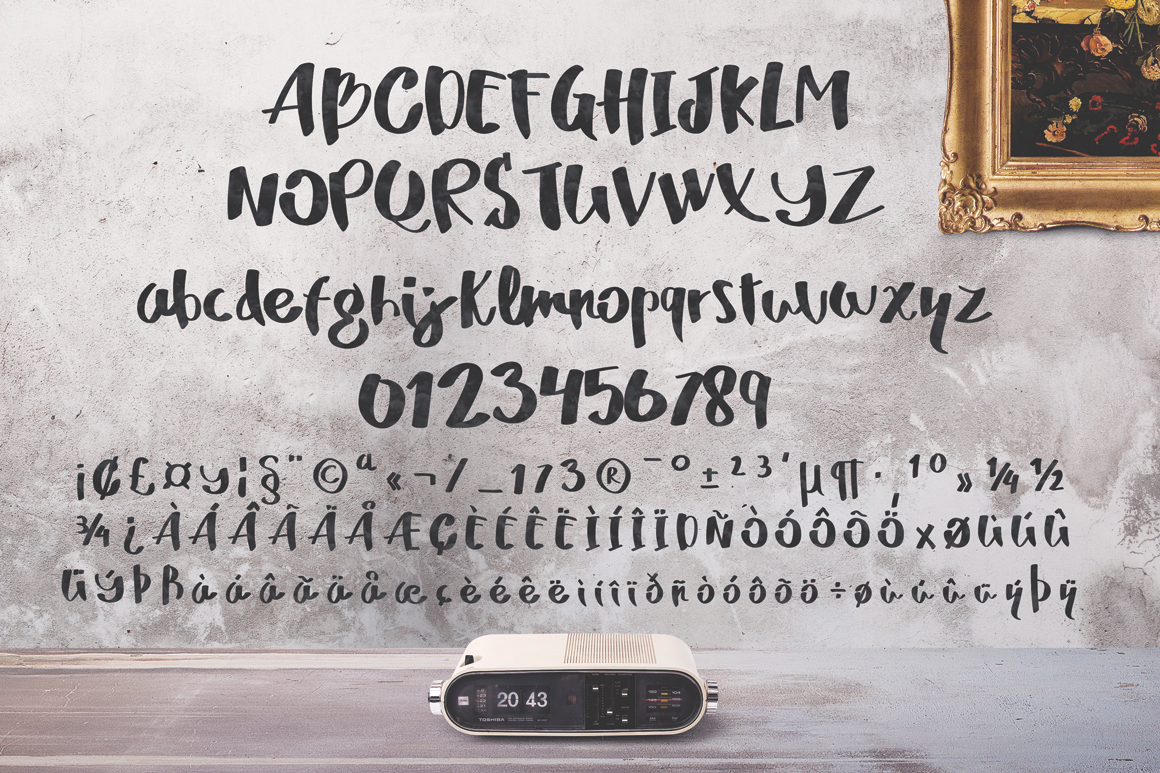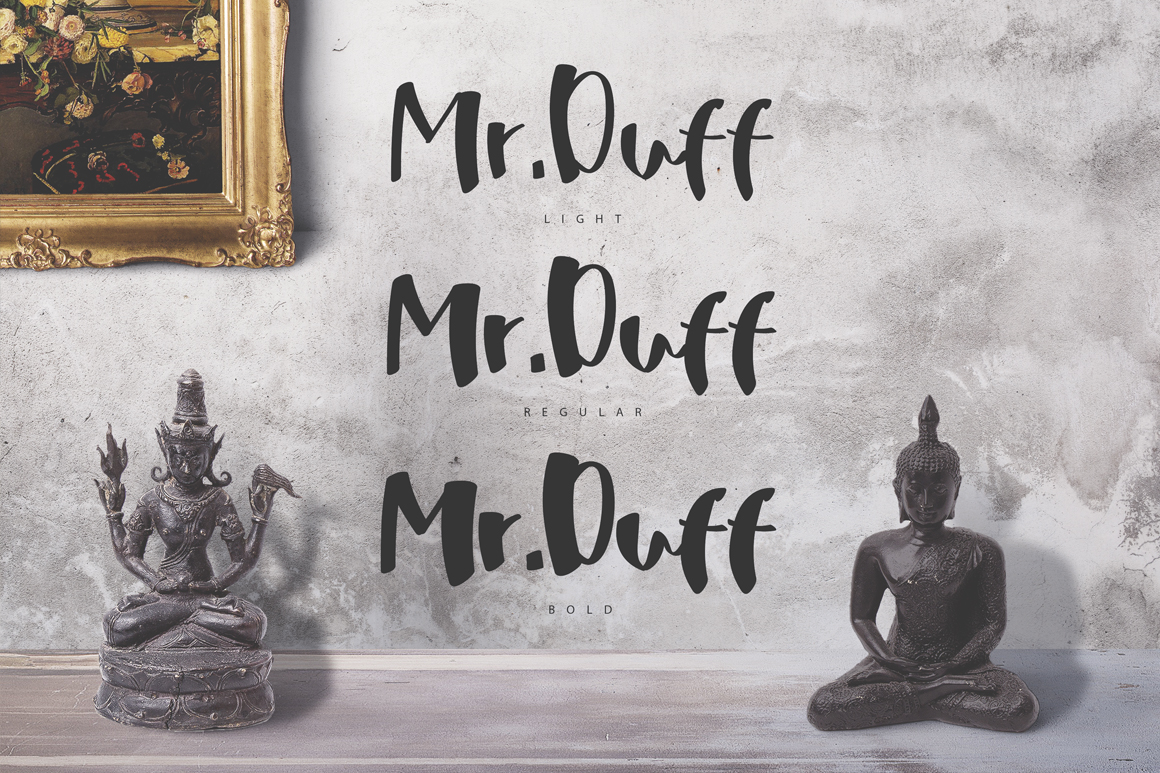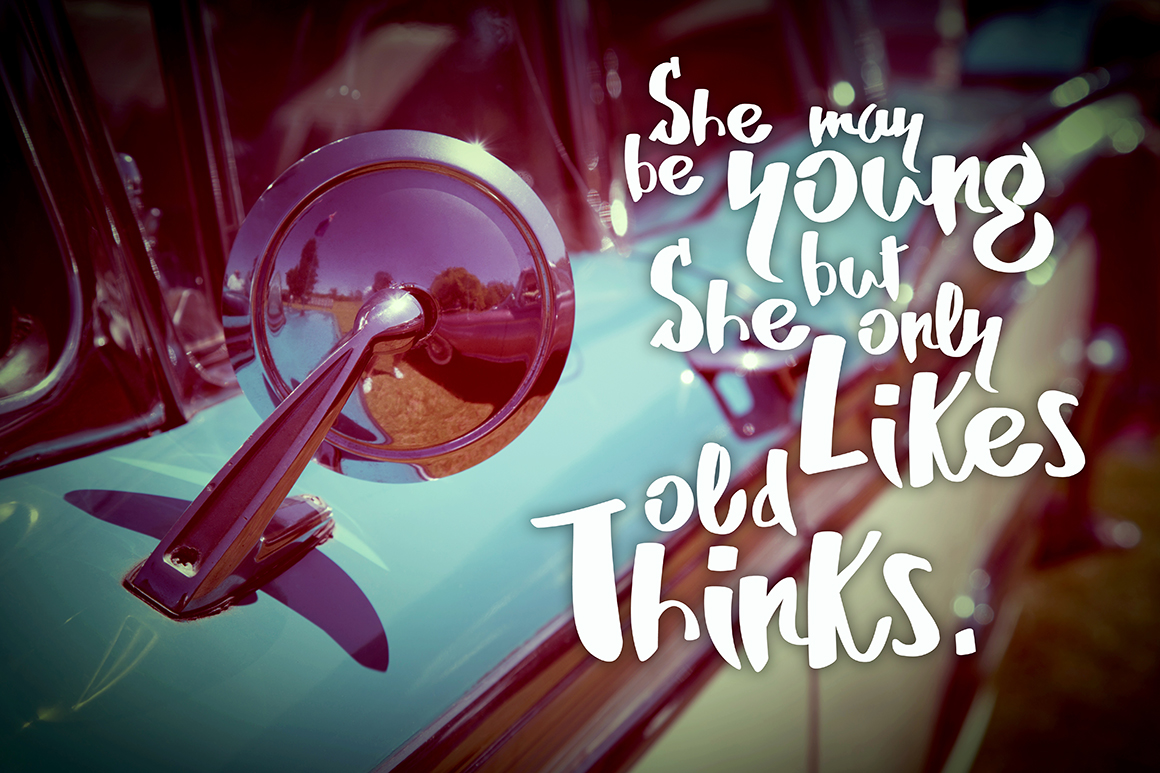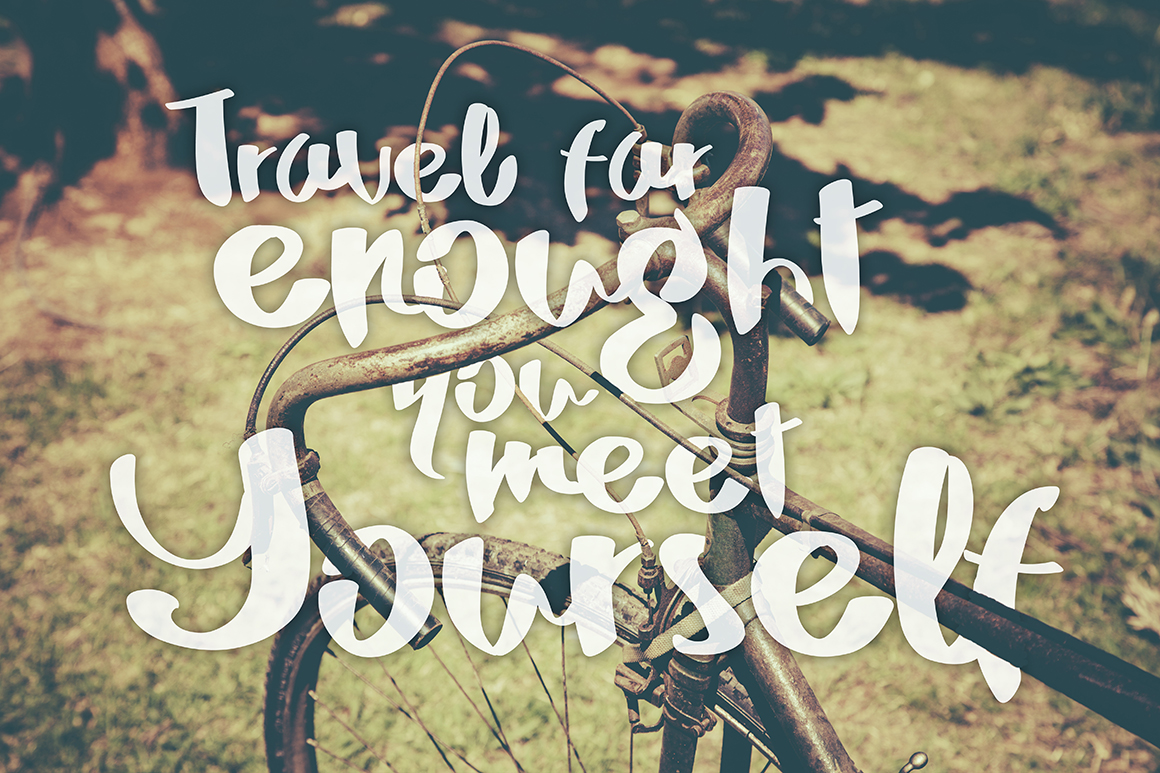
Introduction to Mr. Duff Font
Imagine you’re working on a creative project, and you need the perfect font to make your design pop. You’ve tried countless options, but nothing seems to capture the essence of your vision. That’s where the Mr. Duff Font comes in – a smooth, playful script font that will elevate your design to the next level.
With its digitally created letters that mimic the look and feel of a thick brush stroke, the Mr. Duff Font is the perfect addition to any project. Its smooth lines and slick finish make it a high-quality design resource that will give your work a professional touch. Whether you’re working on a logo, brochure, or website, the Mr. Duff Font is sure to impress. And the best part? It’s available for free download, making it an accessible resource for designers of all levels.
Whether you’re a seasoned pro or just starting out, the Mr. Duff Font is a valuable tool that will help you bring your creative vision to life. With its transparent background and high-quality design, it’s the perfect choice for any project that requires a touch of elegance and sophistication.
Key Features of Mr. Duff Font
• Unique, hand-drawn design perfect for creative projects requiring a personal touch.
• High-quality font with transparent background, allowing for seamless integration into various design elements.
• Features a clear, readable font size of up to 300 points, making it suitable for large-scale designs.
• Perfect for designers looking for a distinctive, high-quality font to elevate their creative project.
Honest Review: Mr. Duff Font
As a designer, I’m always on the lookout for high-quality design resources that can elevate my creative projects. The Mr. Duff Font caught my eye, and I’m excited to share my honest review with you.
What works well: ✨ The Mr. Duff Font is a beautifully designed font that features a unique, vintage aesthetic. The font is highly customizable, with options to adjust the size, color, and style to suit your needs. The transparent background option is a nice touch, allowing you to easily integrate the font into your design without any distractions.
What doesn’t work so well: ⚠️ One potential limitation of the Mr. Duff Font is its limited character set. While it’s perfect for short phrases or titles, it may not be suitable for longer blocks of text. Additionally, the font can be quite large in size, so you may need to adjust the font size to get the best results.
Overall impression: I’m really impressed with the Mr. Duff Font, and I think it’s a great addition to any designer’s toolkit. The free download option is a bonus, making it accessible to designers of all levels. If you’re looking for a high-quality font to add some personality to your creative project, I highly recommend giving the Mr. Duff Font a try.
Pros:
• High-quality design
• Customizable options
• Transparent background
Cons:
• Limited character set
• Font size can be large
Tips for Getting the Most Out of Mr. Duff Font
Experiment with different font sizes and styles to add depth and visual interest to your design. Use the font in combination with other design elements, such as images and graphics, to create a unique visual effect. The font’s transparent background makes it easy to combine with other design elements.
The Mr. Duff Font is ideal for use in creative projects, such as logos, posters, and social media graphics. Its unique design and high-quality features make it an excellent design resource for any project. With its free download feature, you can easily access and use the font in your next design project.